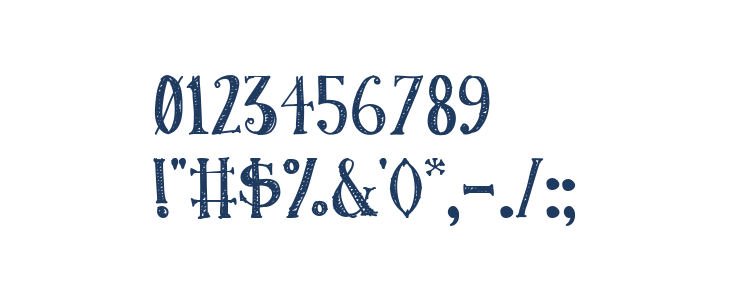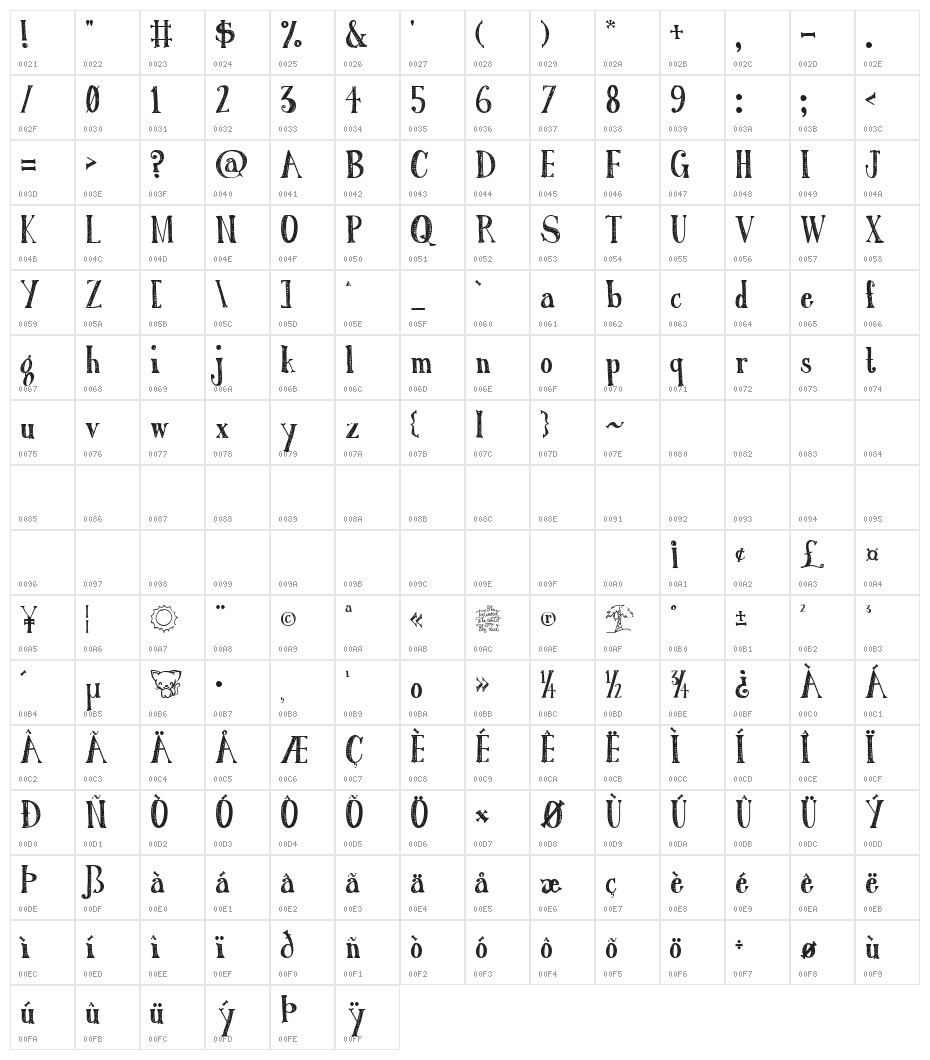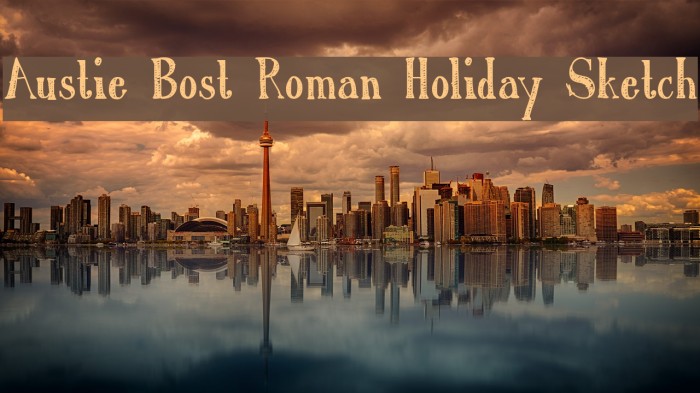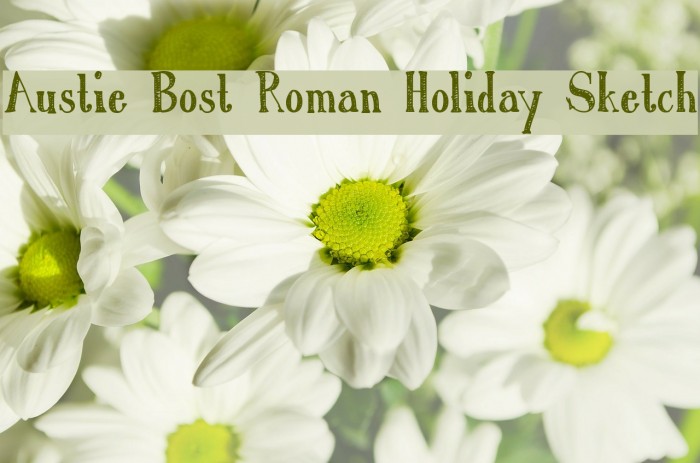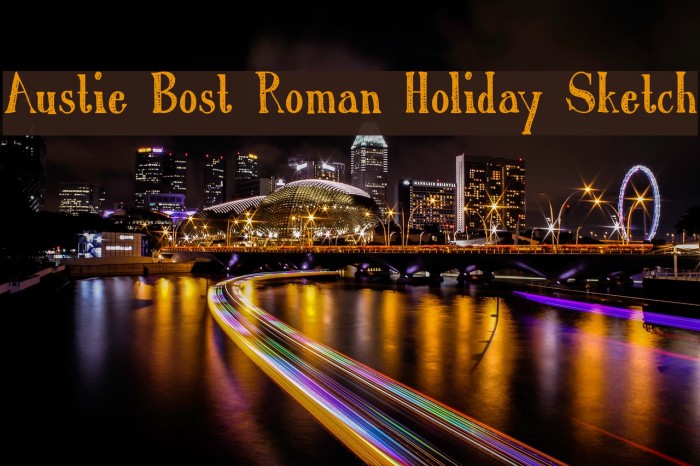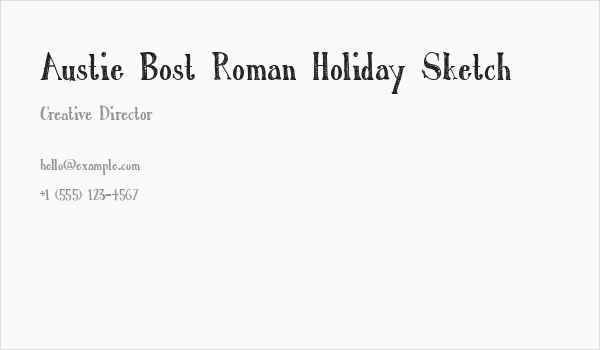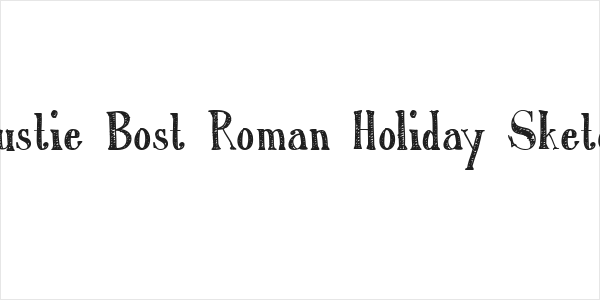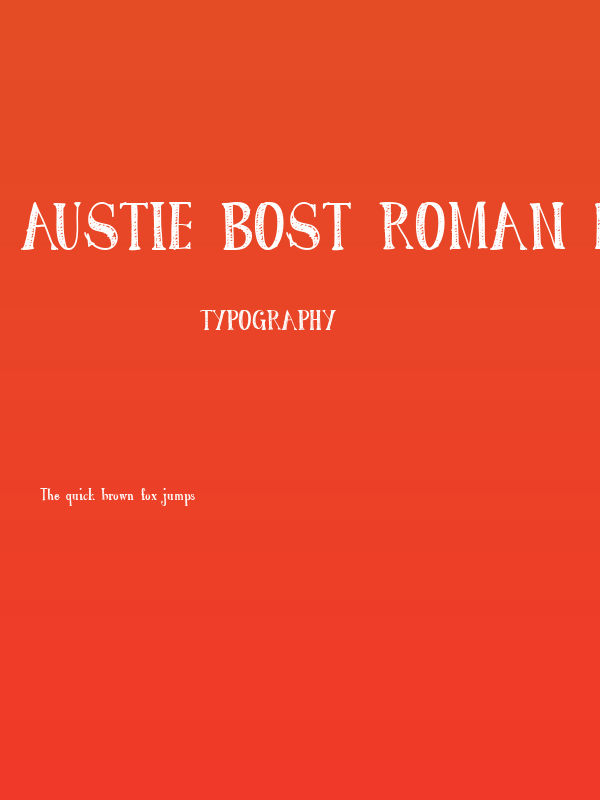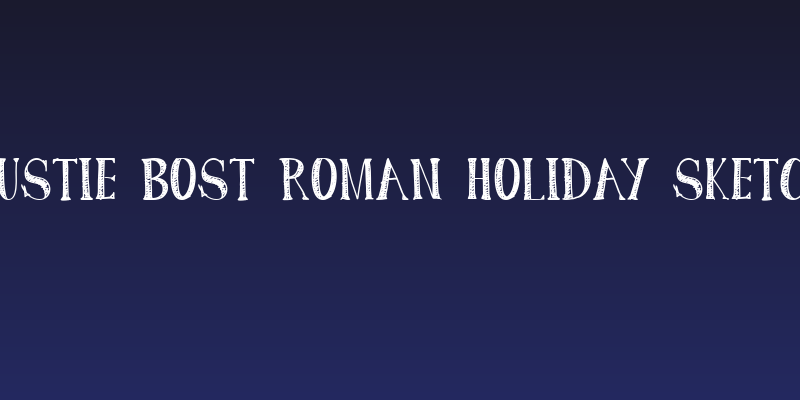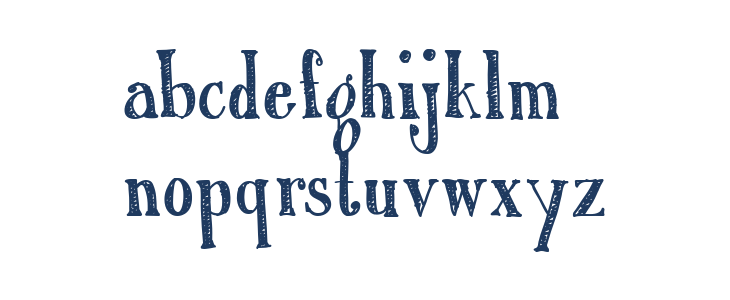
Austie Bost Roman Holiday Sketch Font
Austie Bost Roman Holiday Sketch Description
This font features a playful and whimsical design with a hand-drawn aesthetic. Each character is adorned with intricate sketch-like details, giving it a textured and artistic appearance. The uppercase letters are bold and prominent, while the lowercase letters maintain a consistent style with slight variations in stroke width. Numbers and special characters are equally detailed, maintaining the font's unique charm. The overall look is reminiscent of a doodle or sketchbook style, making it ideal for creative and informal projects.
| Proposed Projects | Perfect for greeting cards, children's book illustrations, playful branding, and DIY crafts. |